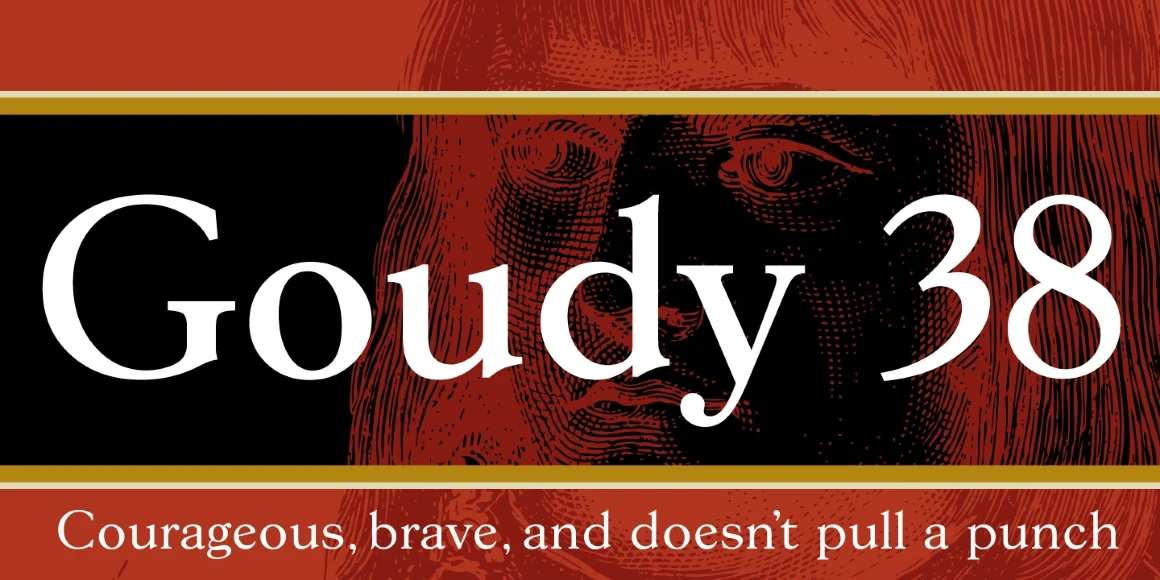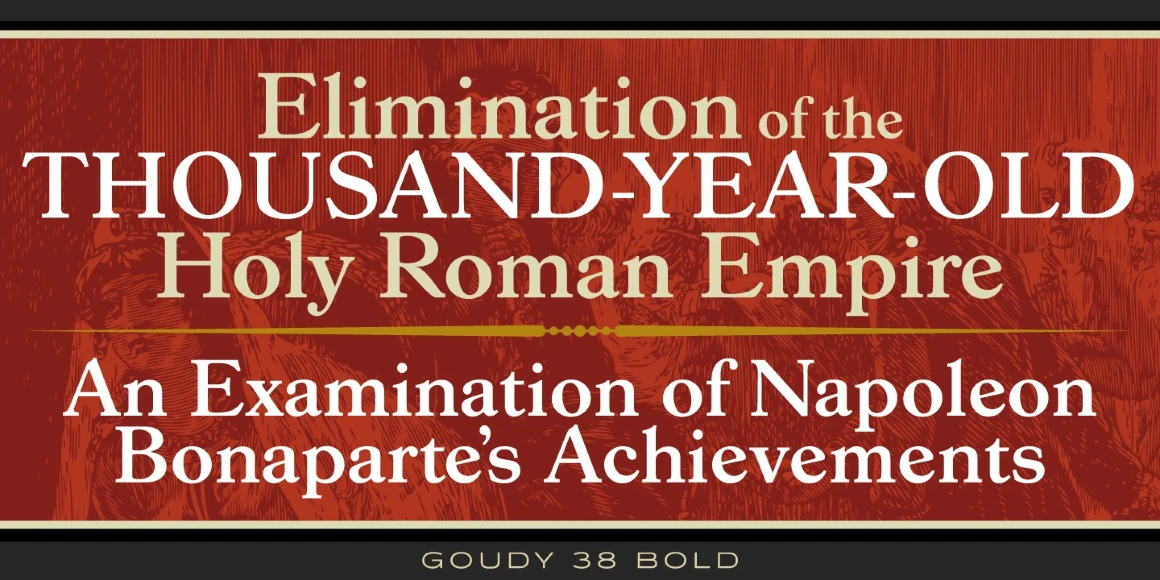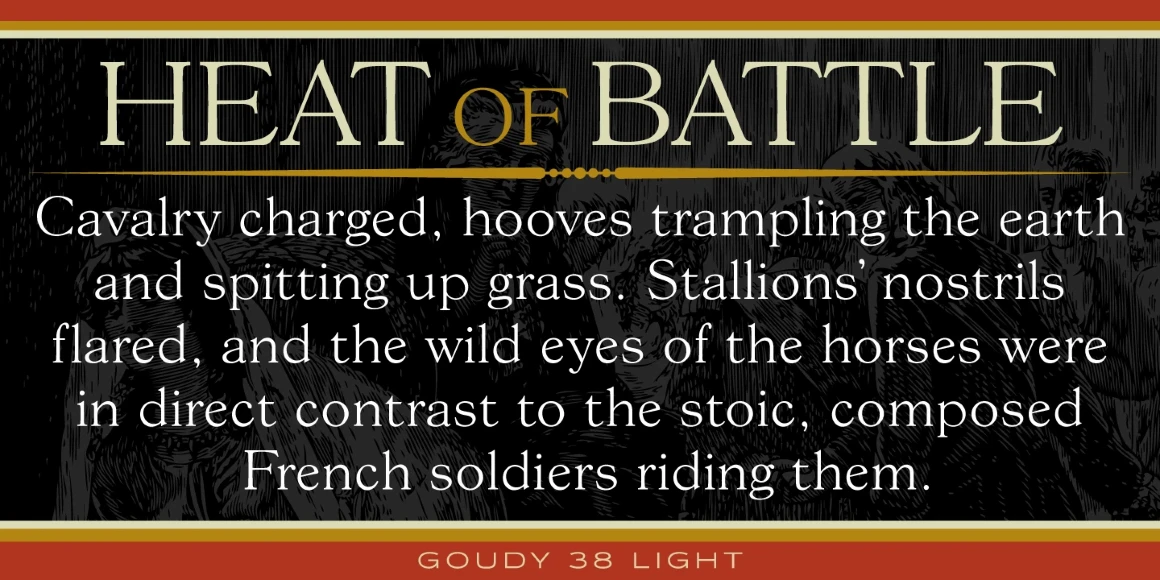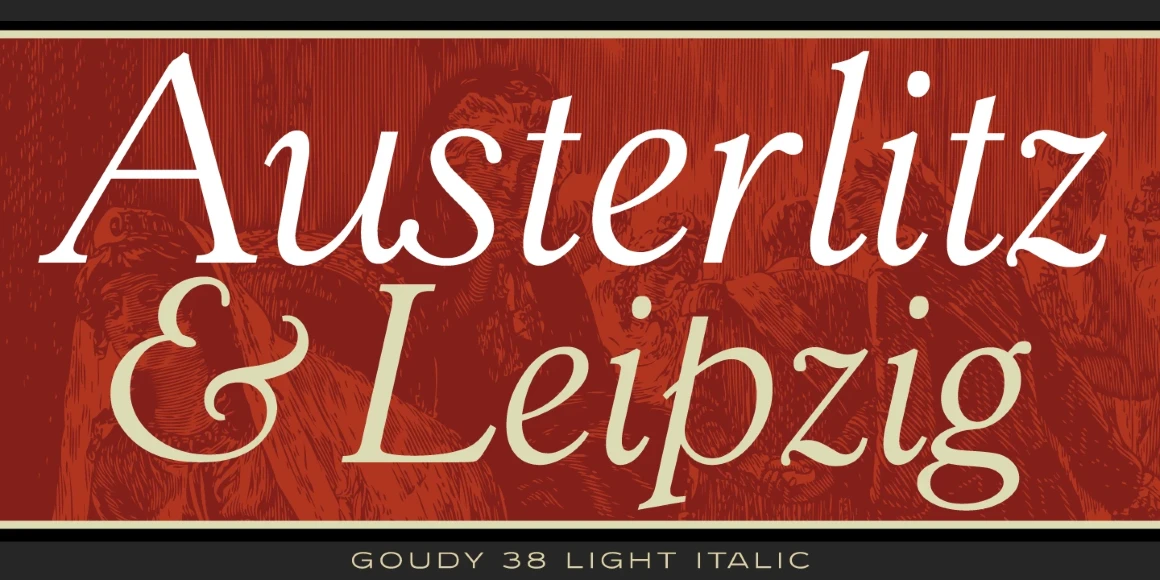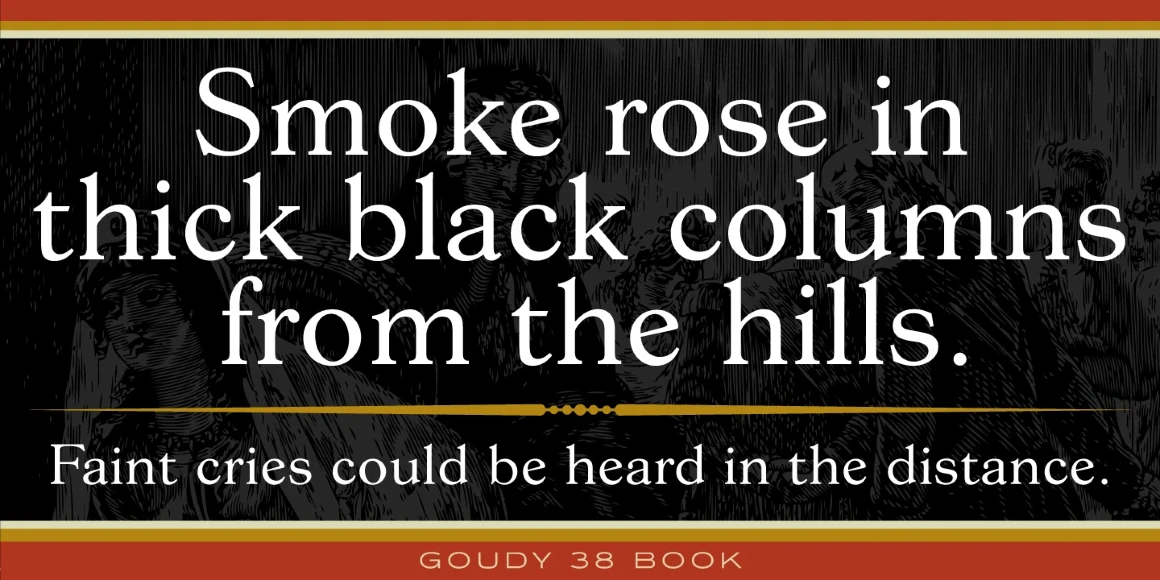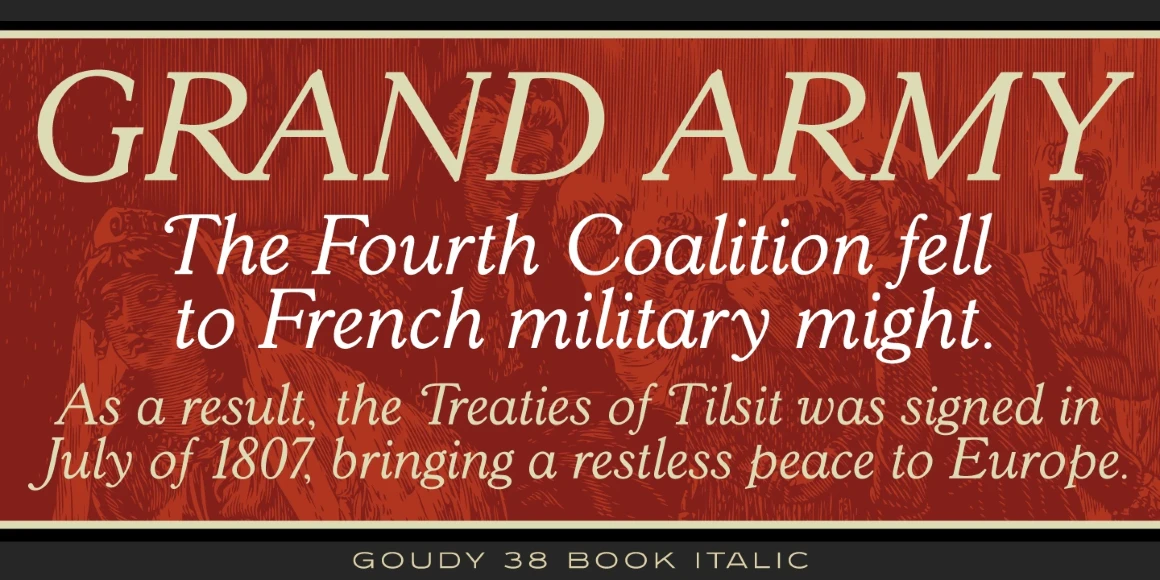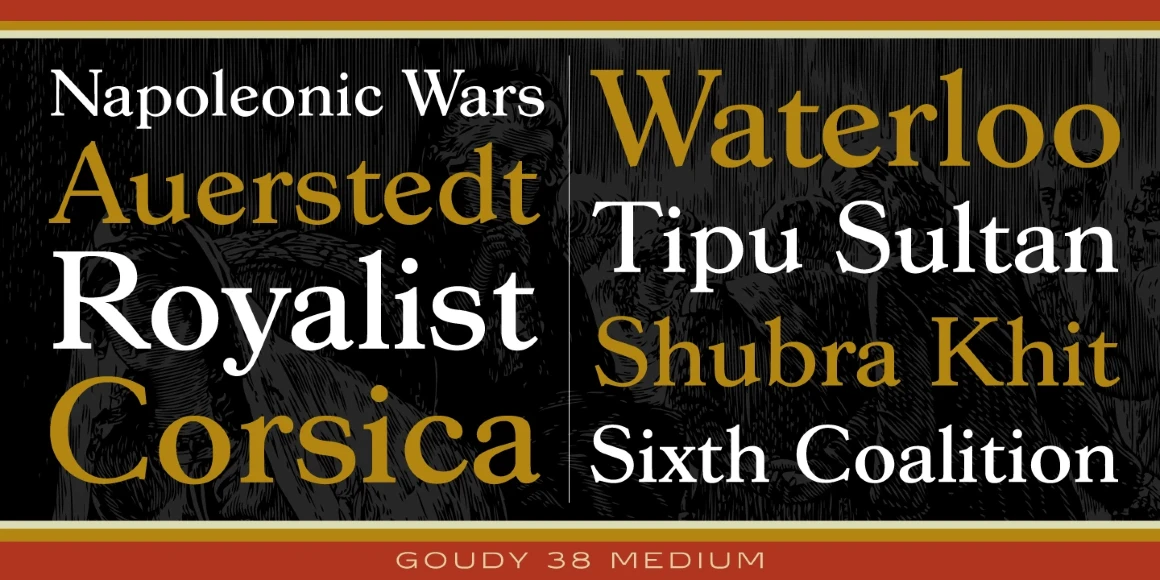
Goudy 38
Goudy 38 is a classic serif font family. Les Usherwood redesigned the family in the early 1980’s as part of his unique Typsettra Collection. International TypeFounders exclusively licensed the Typsettra Collection, and Steve Jackaman (ITF) digitized and produced the family in 1992. Goudy 38 was originally designed by Frederick Goudy for the first Life magazine, circa 1908, but production delays meant the typefaces were never used by Life. Gimbel Brothers, the famous New York department store, opened in 1910 — around the time of their completion. The typefaces were used almost entirely for Gimbel’s advertising and was often known as Goudy Gimbel, but they were better known by their Monotype series number, Goudy 38.